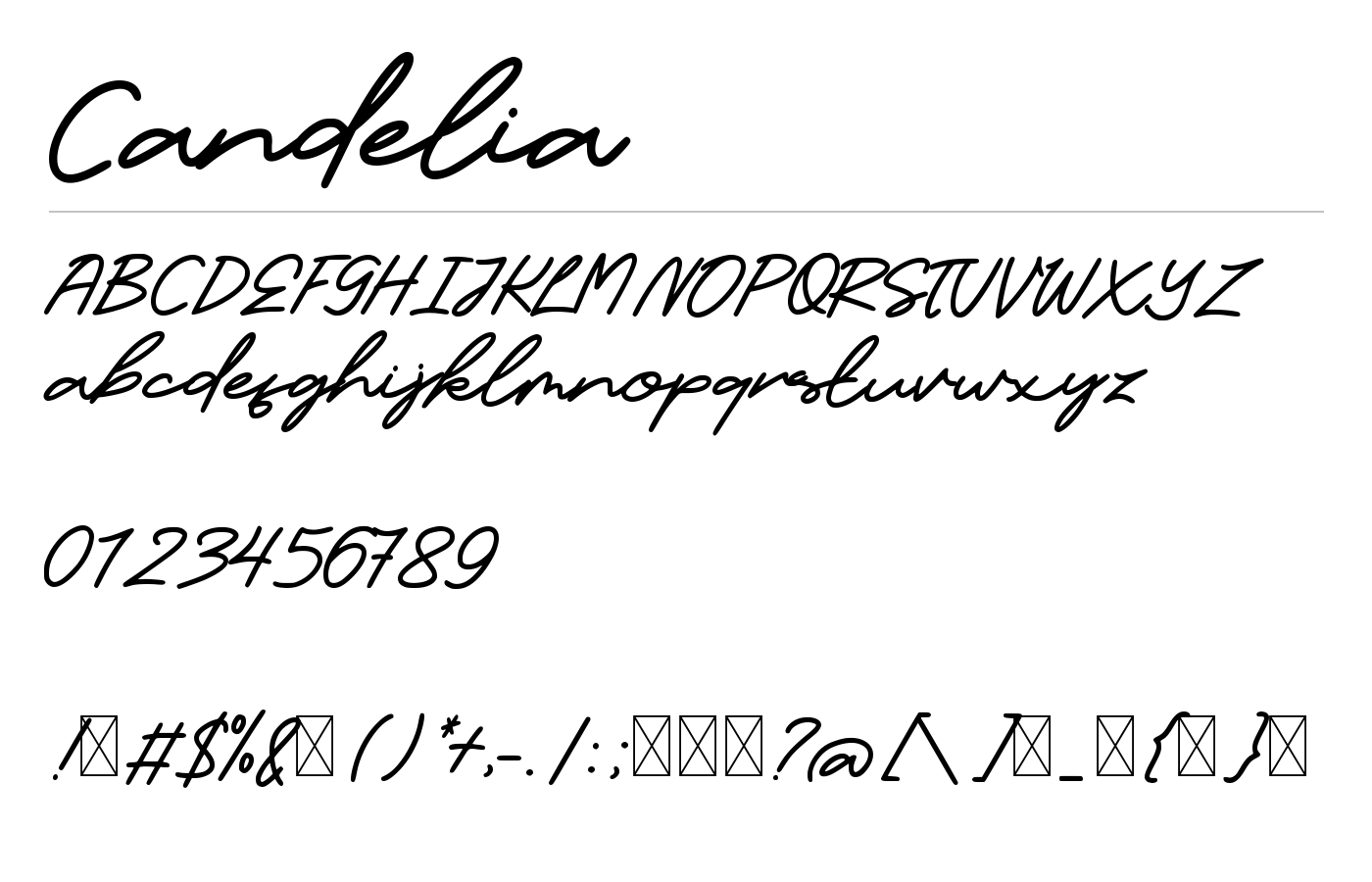
Candelia is a stylish script font with a smooth, flowing handwritten feel that combines elegance and casual charm. Its medium weight and moderately high x-height enhance readability while maintaining a natural, personal touch, making it ideal for invitations, branding, and creative projects that seek a warm, approachable aesthetic. This font works wonderfully for logos, social media content, and packaging where a friendly yet refined look is desired.
Candelia Font
About Candelia Font